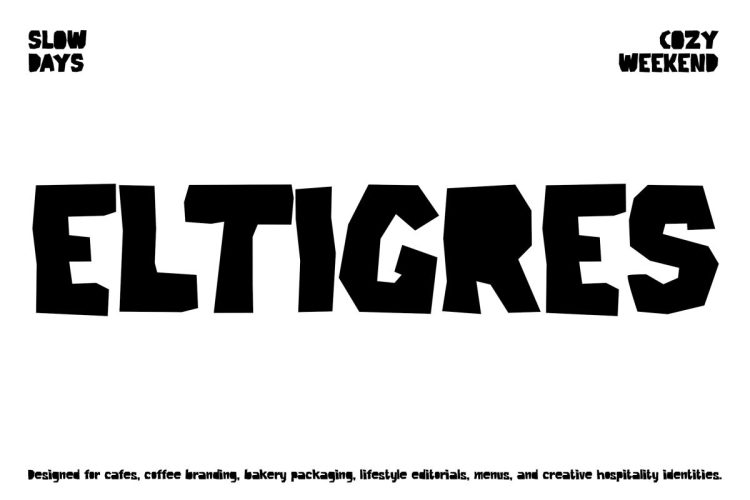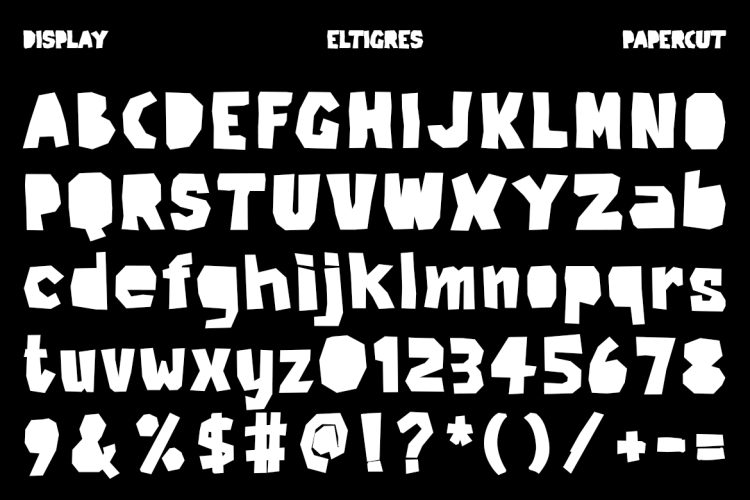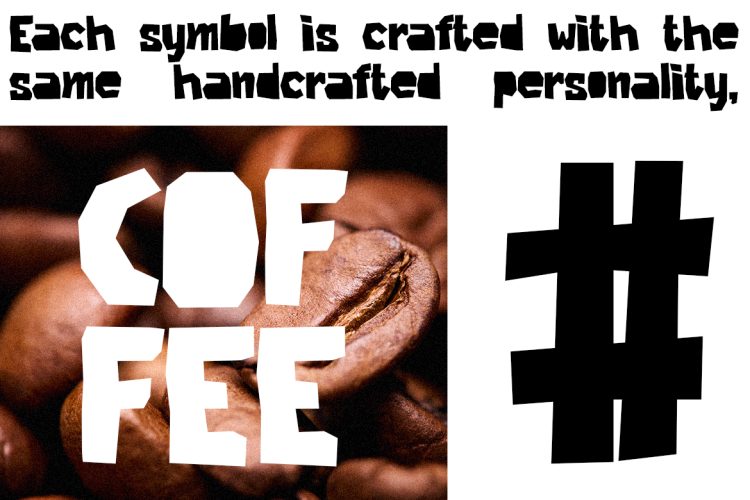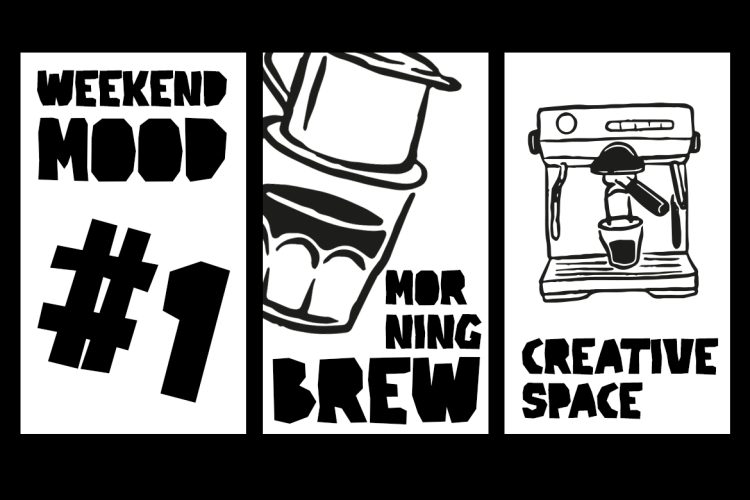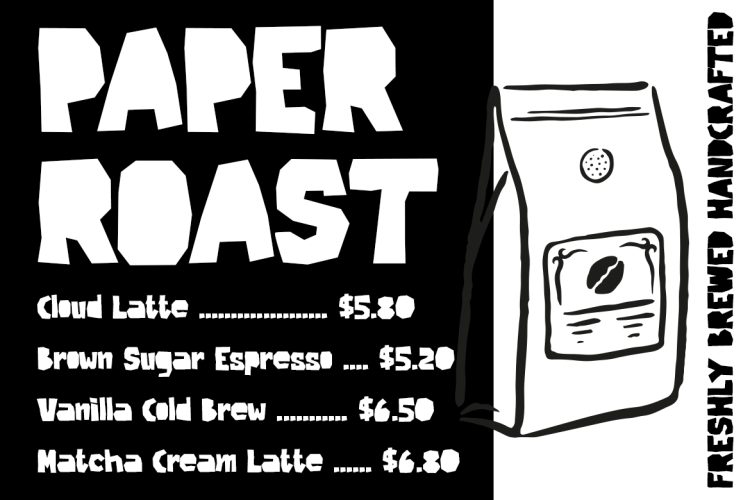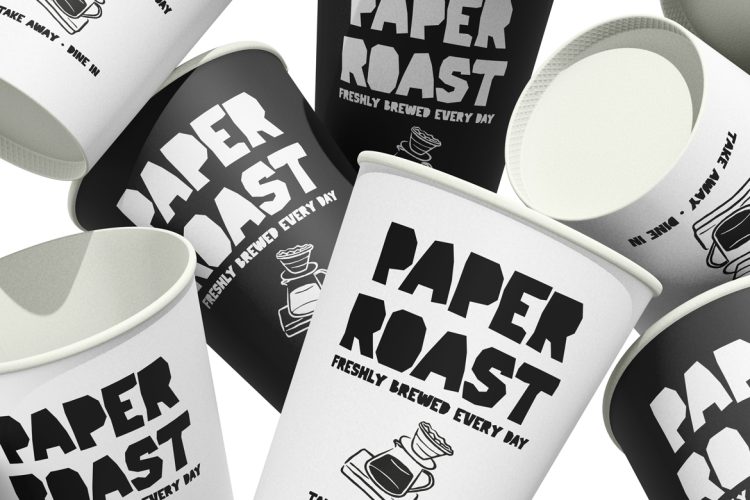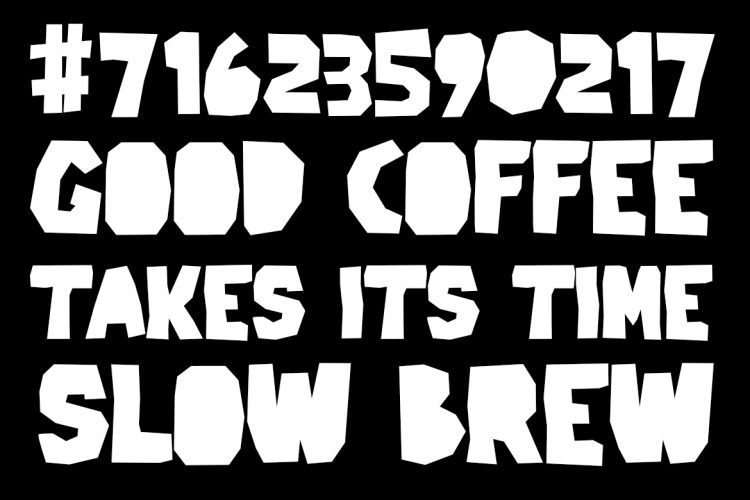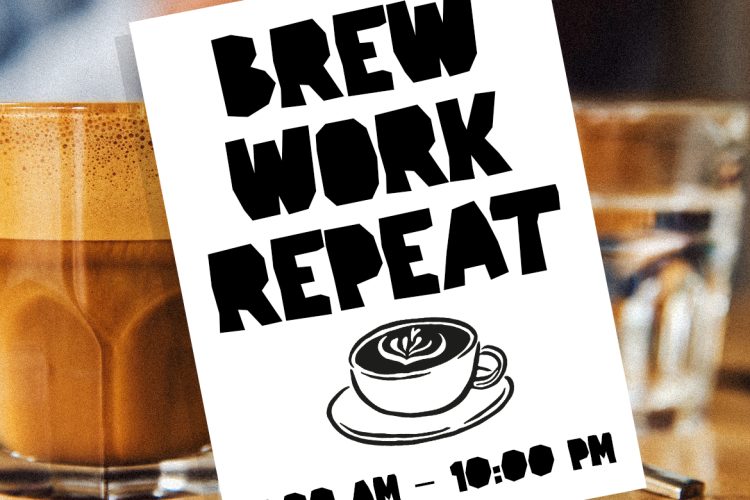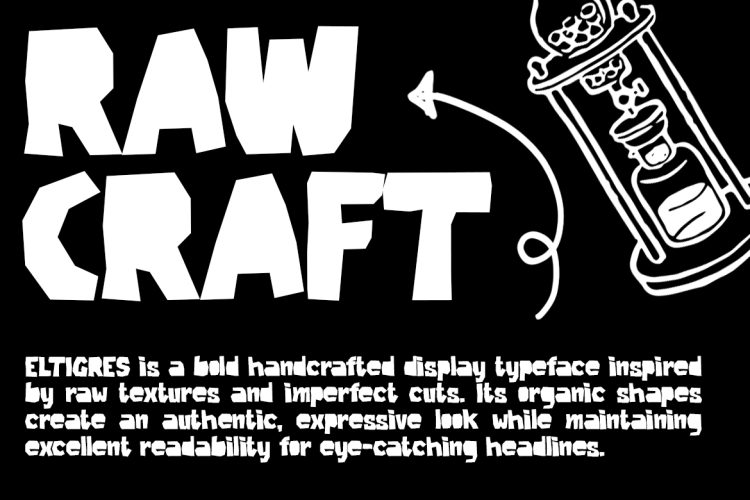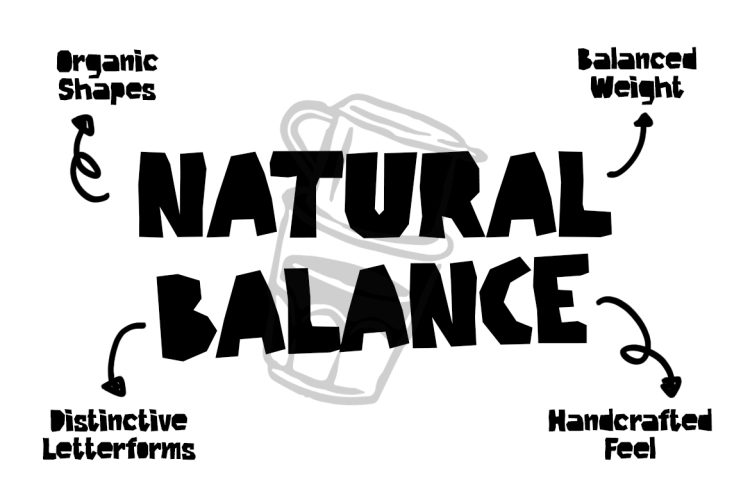
Modern Font Eltigres โ Raw Papercut Display Font for Bold Branding & Creative Headlines
Modern Font Eltigres is a bold display font inspired by handcrafted paper-cut shapes that instantly commands attention. With chunky letterforms, rugged edges, and an expressive handcrafted structure, this font creates a strong visual impact while keeping every word clear and readable. Moreover, its unique cutout style delivers an artistic, modern look that feels daring, creative, and full of personality. As a result, your headlines become impossible to overlook.
Why You’ll Love It
Additionally, Eltigres is designed for creators who want typography with attitude. Every character carries handcrafted imperfections that add depth and originality to your work. Whether you’re building cafรฉ branding, packaging, posters, merchandise, or social media graphics, this font adapts effortlessly. Furthermore, its bold silhouette pairs perfectly with minimalist layouts and striking visuals. Besides that, the handcrafted texture creates an authentic appearance that helps your designs feel distinctive. Therefore, every project gains a memorable and confident identity.
Modern Font Eltigres Perfect For
Coffee shop branding, cafรฉ menus, restaurant packaging, logos, posters, apparel, merchandise, social media graphics, magazine headlines, album covers, creative advertising, product labels, streetwear branding, event promotions, and bold editorial designs.
Make Every Headline Impossible to Ignore